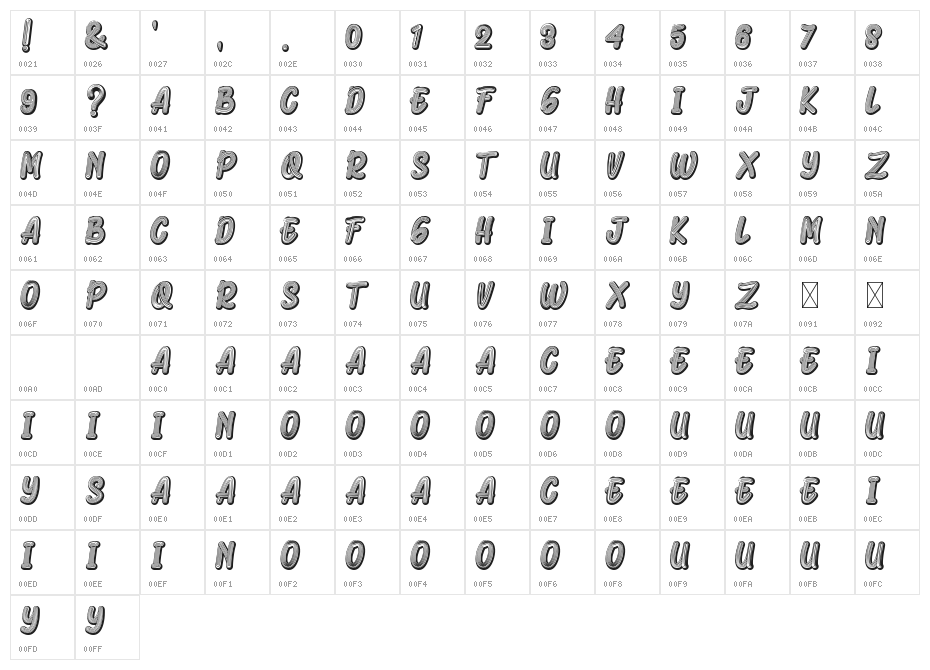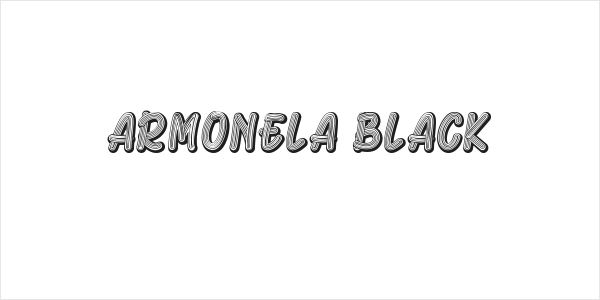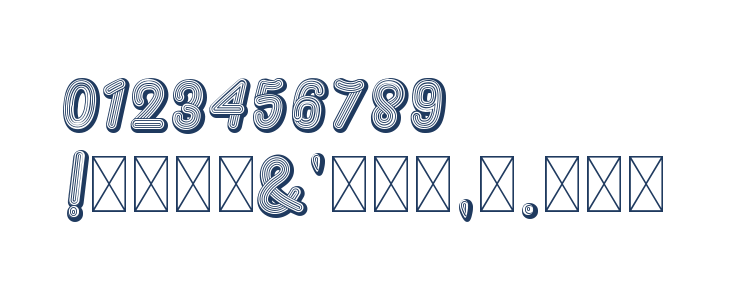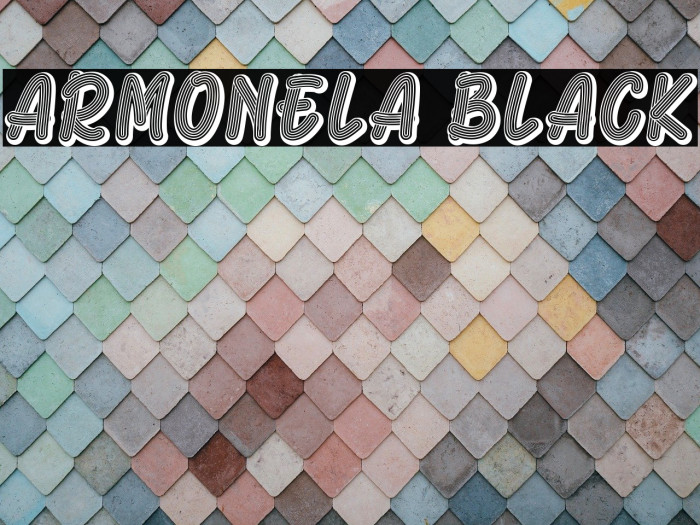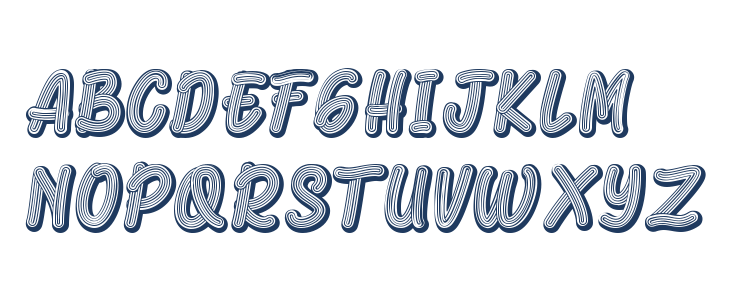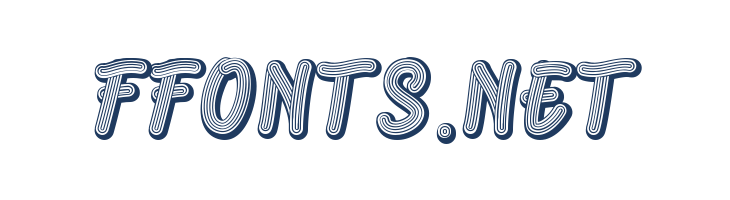
Armonela Black Font
Armonela Black Description
This font features a bold, decorative style with a unique layered effect that creates a sense of depth and dimension. Each character is outlined with multiple concentric lines, giving it a striking and dynamic appearance. The font maintains a consistent thickness throughout, with rounded edges that soften its boldness. Its playful and eye-catching design makes it ideal for creative projects that require a standout typeface. The characters are evenly spaced, ensuring readability despite their intricate design. This font is perfect for making a statement in any visual composition.